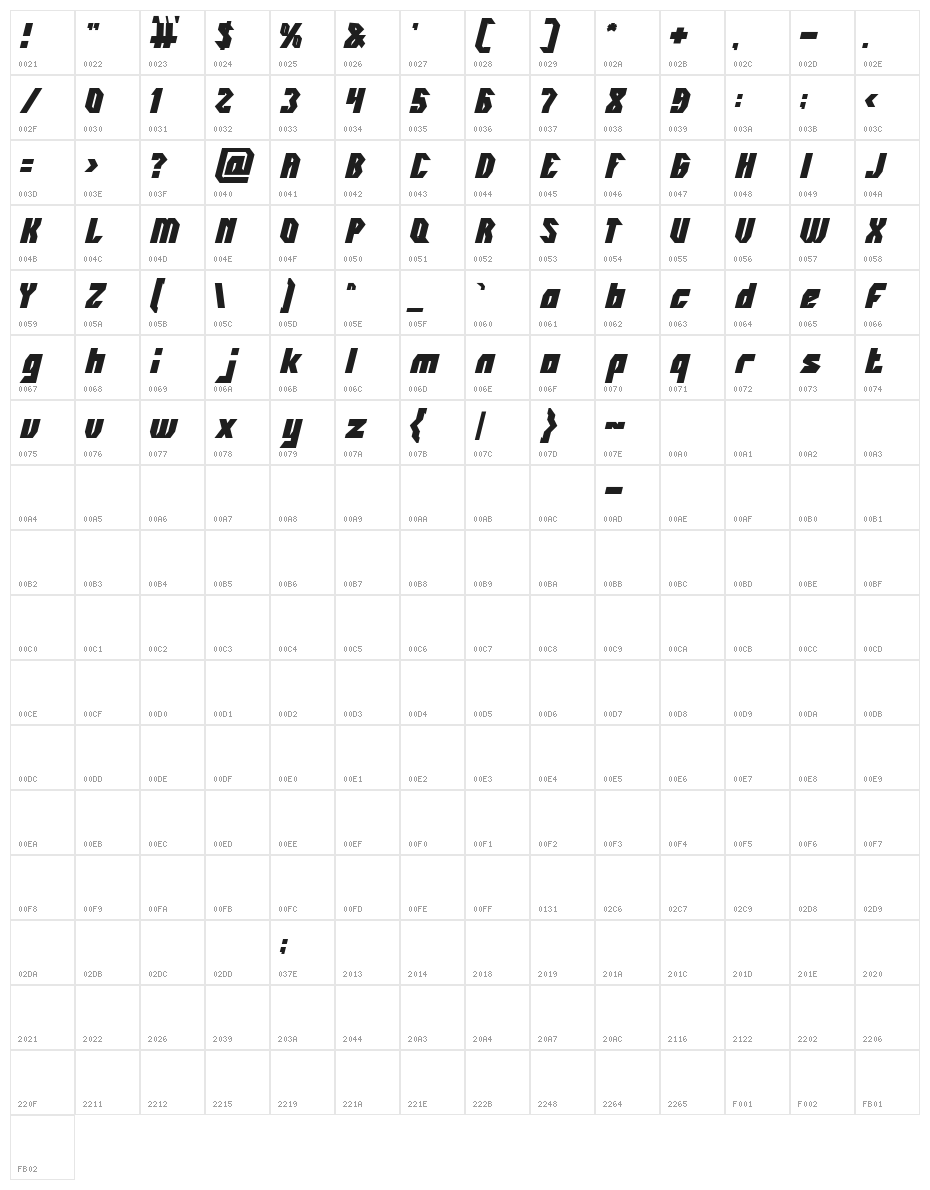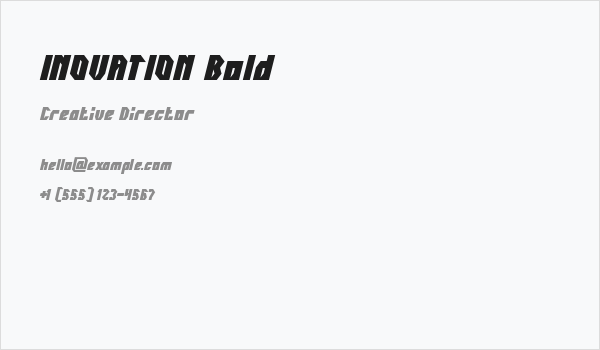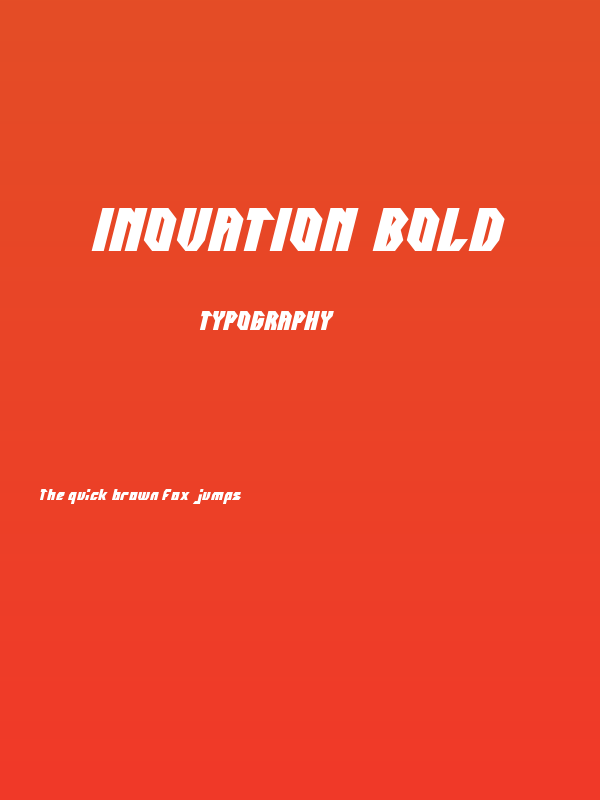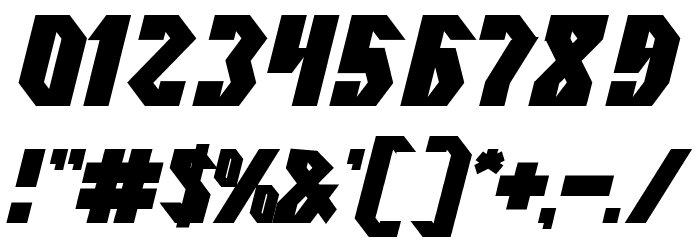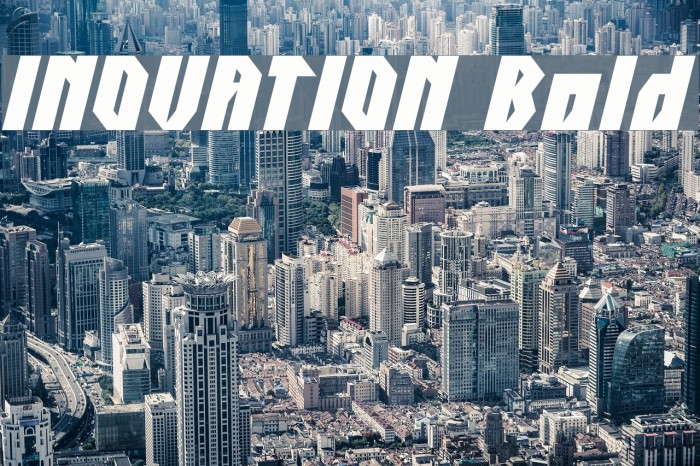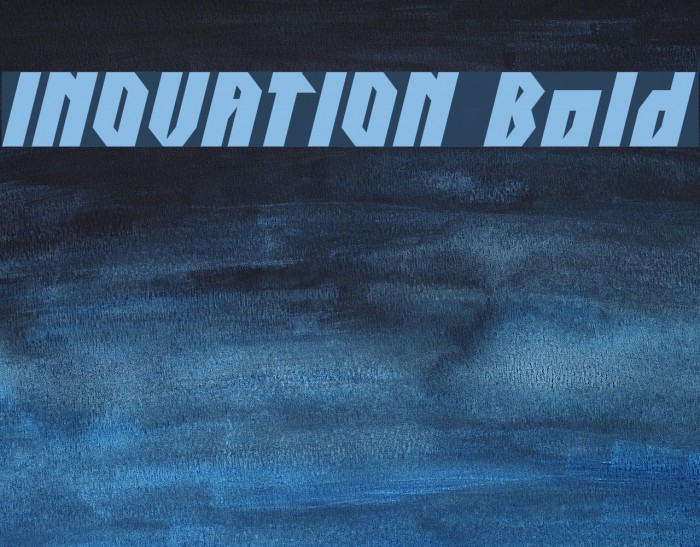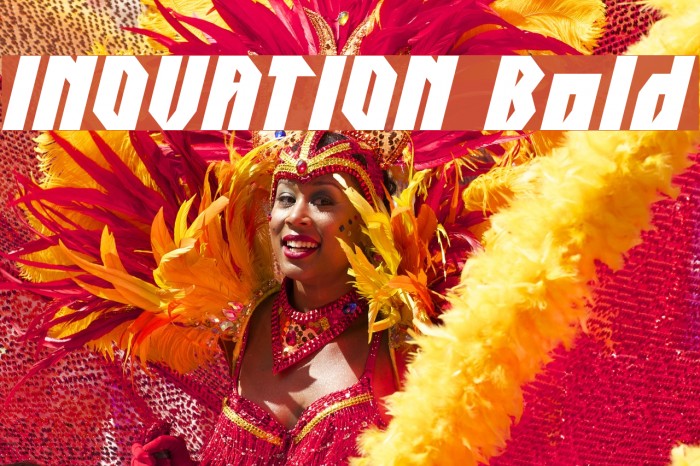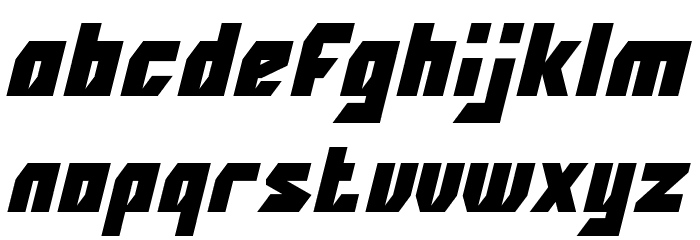
INOVATION Bold Font
INOVATION Bold Description
This font features a bold, angular design with a futuristic and dynamic feel. The characters are sharply cut with distinct edges, giving them a geometric and aggressive appearance. The uppercase and lowercase letters maintain a consistent style, with the lowercase slightly more compact. Numbers and special characters follow the same angular theme, ensuring uniformity across all glyphs. The font's boldness and unique style make it stand out, suitable for projects that require a strong visual impact.
| Proposed Projects | Ideal for branding, sports team logos, video game titles, and posters requiring a bold and modern look. |